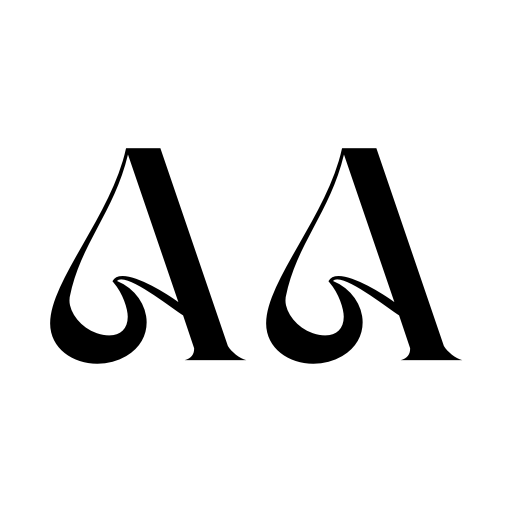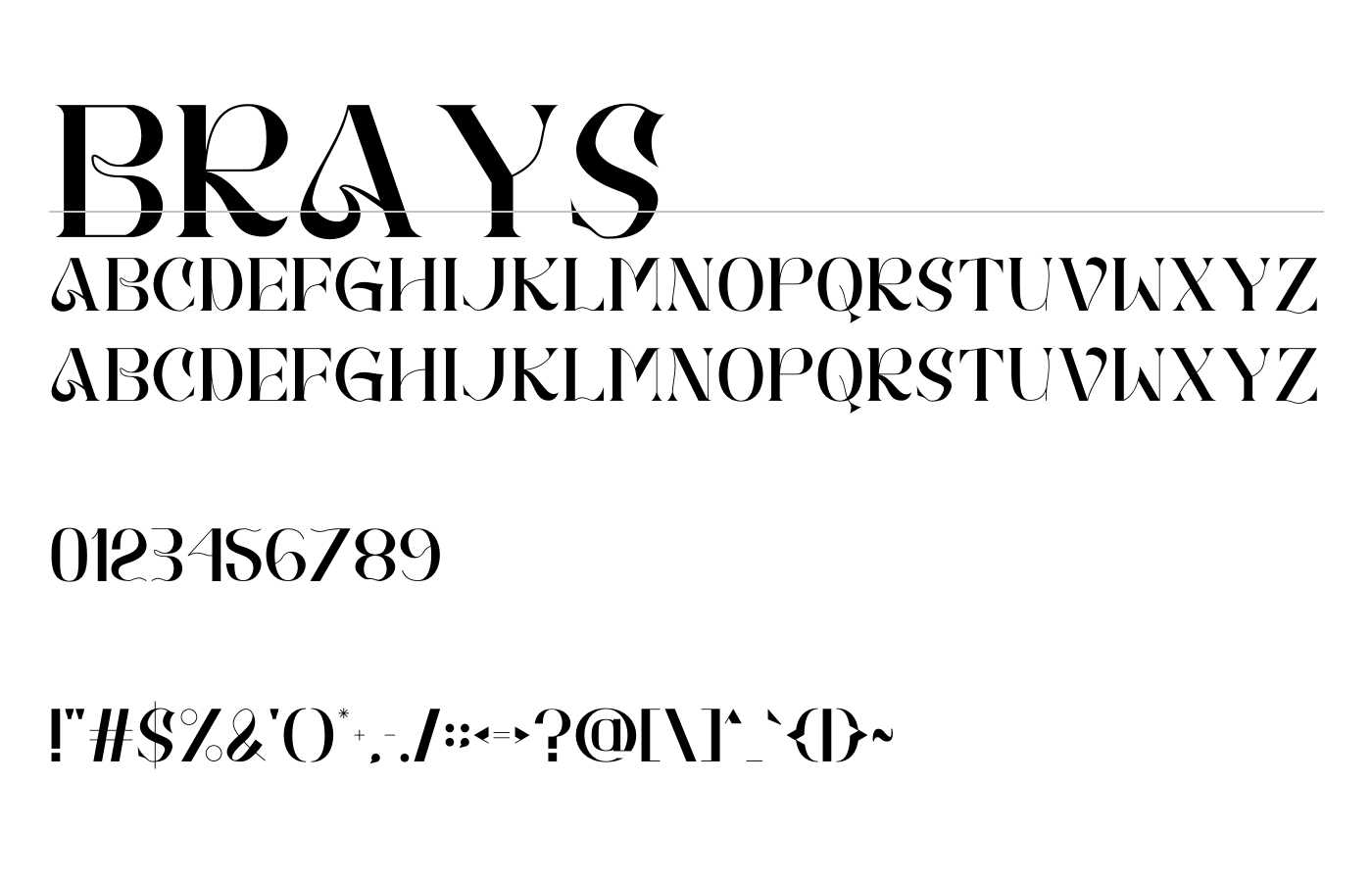
Brays is a modern serif font with a high contrast between thick and thin strokes, featuring elegant, sharp serifs and distinctive decorative flourishes that give it a sophisticated and artistic feel. Its tall, condensed letterforms paired with unique details like single-story ‘a’ and stylized numbers make it ideal for luxury branding, editorial headlines, and fashion packaging where a stylish and refined impression is desired. This font works beautifully in upscale and creative contexts that demand both elegance and a touch of flair.
Brays Font
About Brays Font